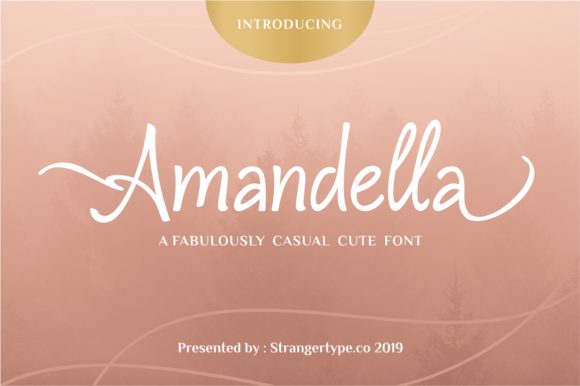
Feast your eyes upon Amandella, a script font that exudes charm and elegance. Its whimsical strokes bring a touch of playfulness, while its carefully crafted curves lend an air of sophistication. Step into a world of boundless creativity, where Amandella's versatile nature shines. Whether you seek to craft enchanting wedding invitations, design captivating posters, or add a touch of whimsy to your social media posts, Amandella stands ready to elevate your vision.
Designed with meticulous attention to detail, Amandella offers a delightful array of uppercase and lowercase alternates, inviting you to explore endless possibilities. Its casual cuteness makes it perfect for adding a personal touch to any project. Let Amandella's graceful curves and playful alternates ignite your imagination and transport you to a realm of creative expression like never before.
Imagine your wedding backdrop adorned with Amandella's enchanting characters, each letter flowing into the next with effortless grace. Your guests will be captivated by the beauty and charm of this exquisite font, creating memories that will last a lifetime. Amandella is not just a font; it's an experience, a journey into the realm of visual enchantment.